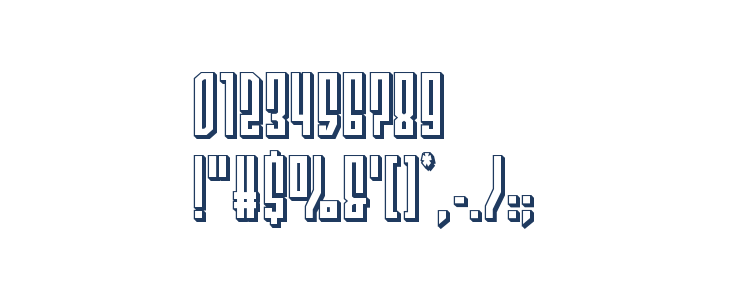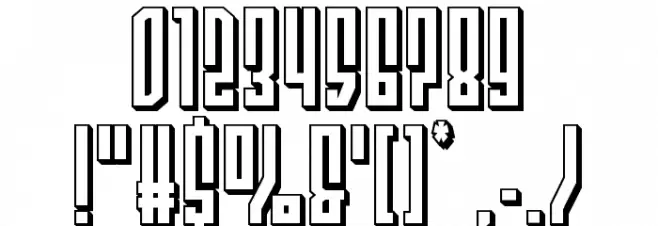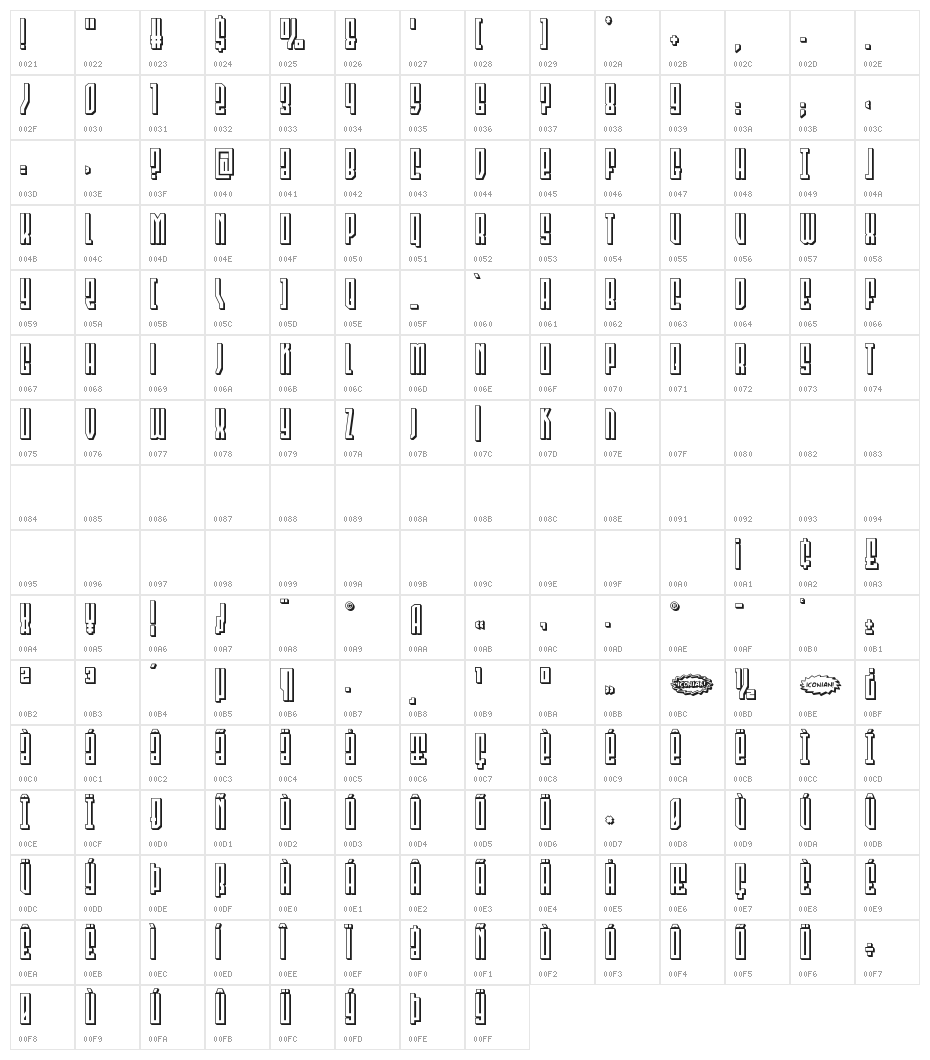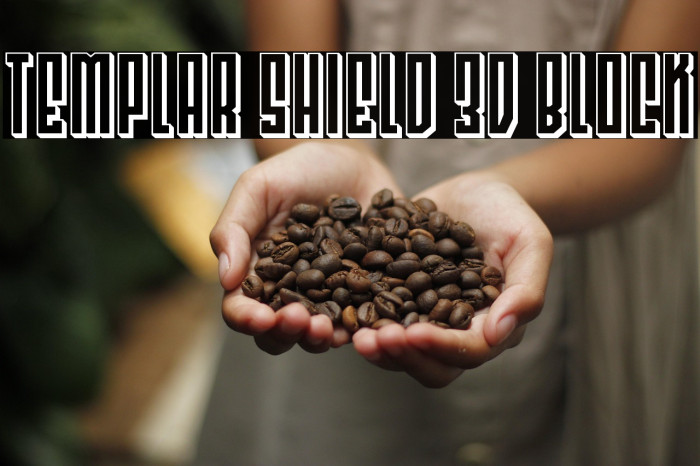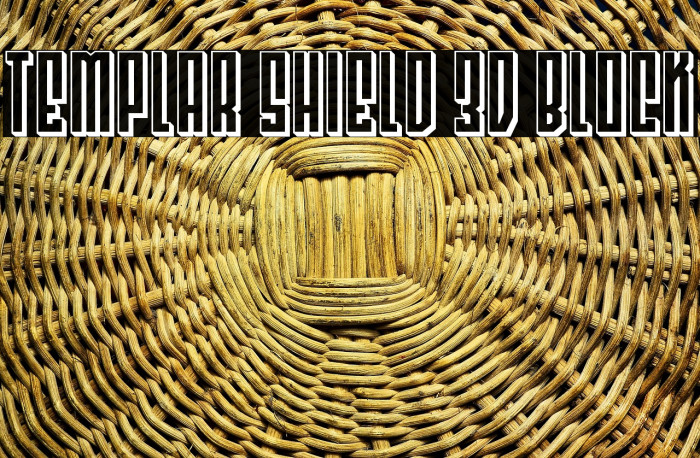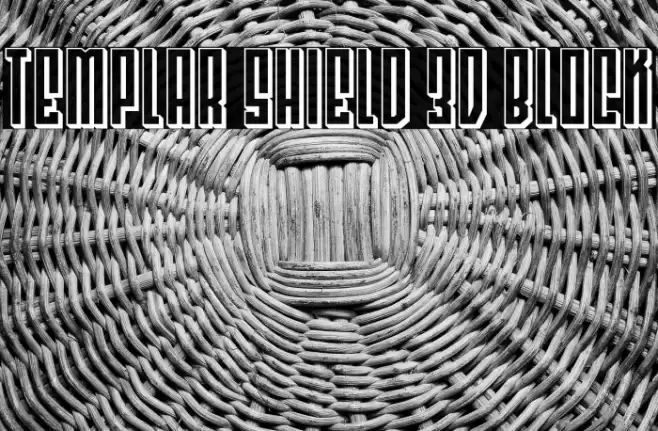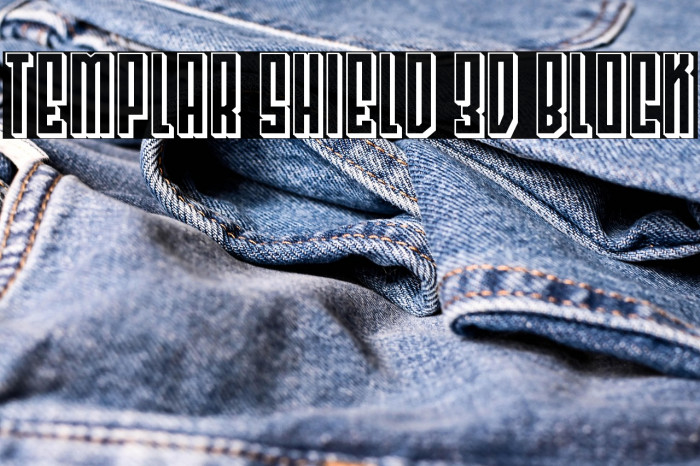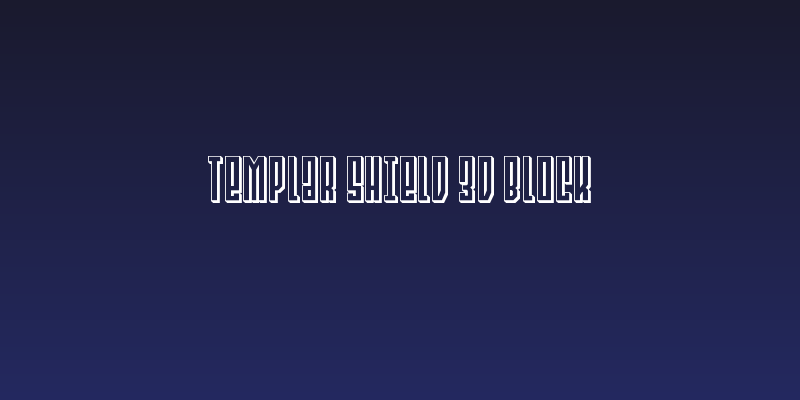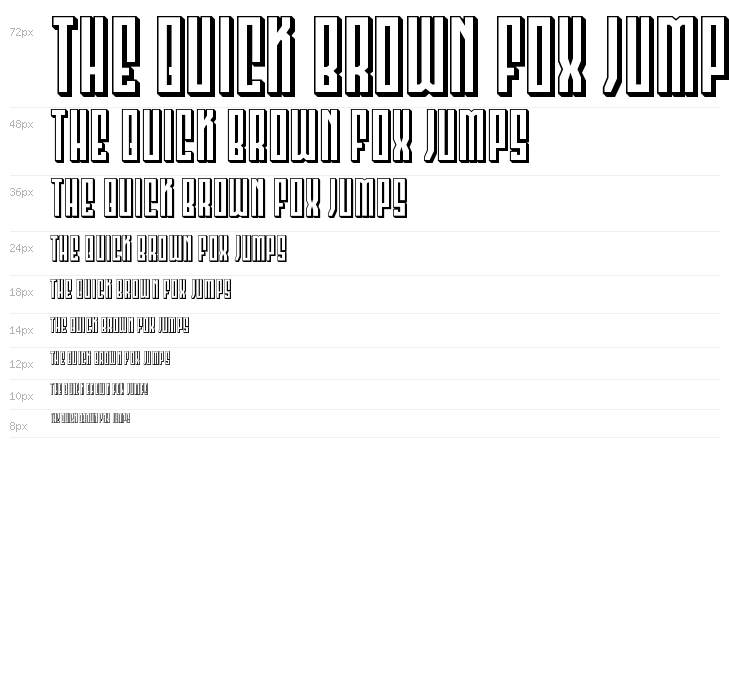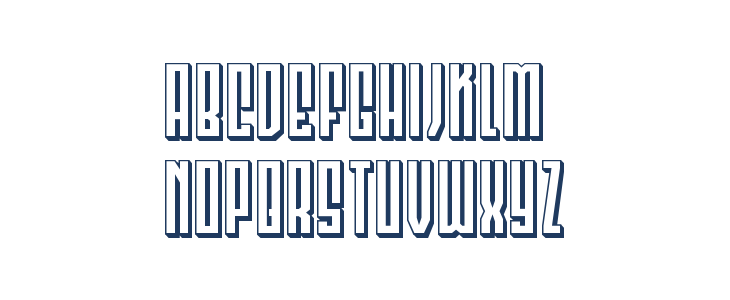
Templar Shield 3D Block Font
Templar Shield 3D Block Description
This font features a bold, three-dimensional block style that gives each character a strong and impactful presence. The letters are designed with a thick outline and a shadow effect, creating a sense of depth and solidity. The uppercase and lowercase characters maintain a consistent geometric structure, with sharp angles and clean lines. The numbers and special characters follow the same design principles, ensuring uniformity across all glyphs. This font's distinctive style makes it ideal for projects that require a bold and attention-grabbing typeface.
| Proposed Projects | Ideal for posters, logos, video game titles, and any design requiring a bold, impactful typeface. |